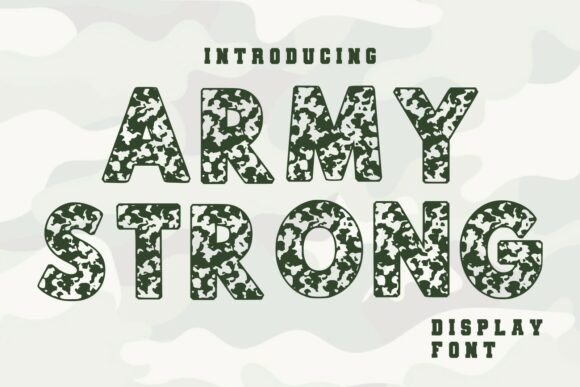
The Ultimate Font for Bold Designs: Army Strong
I’ll never forget the design project that led me to discover the Army Strong font. I was working on a branding campaign for an outdoor gear company, and I needed a font that could convey a sense of ruggedness and adventure. After hours of searching, I stumbled upon Army Strong, and it was love at first sight. The bold, camouflage-style letterforms filled with texture immediately caught my attention, and I knew I had found the perfect fit for my project.
Army Strong: A Font that Packs a Punch
Army Strong is a bold display font inspired by military patterns and rugged outdoor aesthetics. Its strong letterforms are filled with a camo texture, giving it a powerful and tactical look that’s perfect for army themes, survival designs, outdoor branding, posters, apparel, logos, and adventure projects. This font adds a tough, masculine, and adventurous feel to your designs, making it ideal for bold headlines and impactful visuals.
- ✨ Unique texture: The camo texture gives Army Strong a distinctive look that’s hard to find in other fonts.
- ✅ High versatility: This font can be used for a wide range of projects, from posters and logos to apparel and branding.
- 💪 Tough and rugged: Army Strong’s bold letterforms and texture convey a sense of strength and resilience.
⚠️ While Army Strong is a fantastic font, it’s not without its limitations. For example, the font’s texture can be a bit overwhelming when used in smaller sizes or for body text. Additionally, some users may find the font’s boldness a bit too much for certain design projects.
🤔 Another thing to consider is that Army Strong is a display font, so it’s best used for headlines and titles rather than body text.
The Story Behind Army Strong
Army Strong was designed by a team of creatives who wanted to create a font that captured the essence of military strength and outdoor adventure. Inspired by the rugged textures and bold patterns of military gear, they crafted a font that’s both tough and versatile. Whether you’re designing a logo for an outdoor gear company or a poster for a military-themed event, Army Strong is the perfect choice.